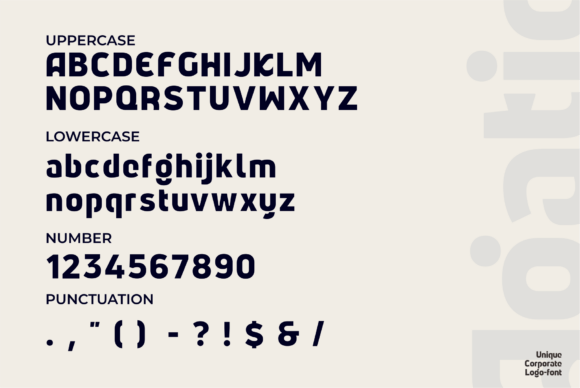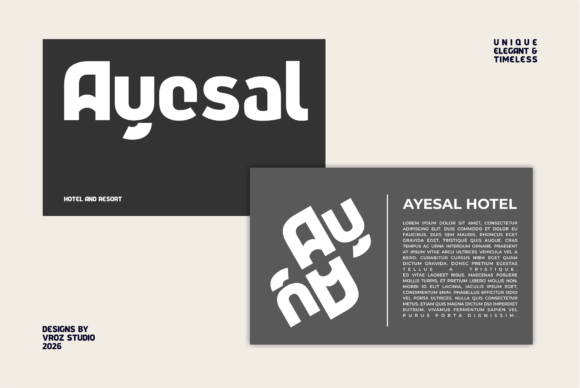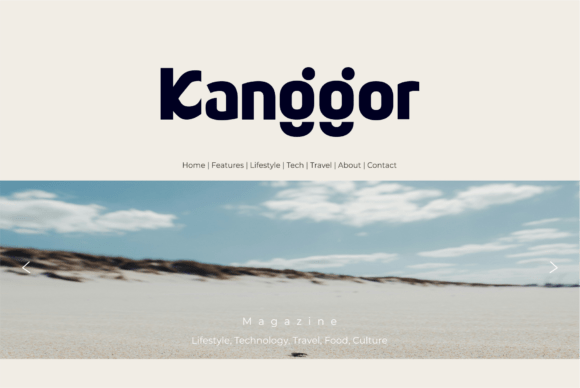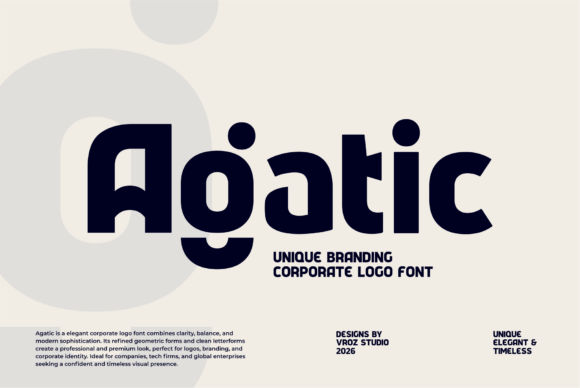
Introduction to Agatic Font
Agatic – Unique Branding Corporate Logo Font Agatic is a refined geometric sans-serif typeface crafted for premium branding and sophisticated corporate identities.
Designed with a focus on balance, precision, and timeless elegance, Agatic delivers a confident visual presence that feels modern yet enduring Built with clarity and consistency in mind, Agatic delivers strong readability while maintaining a distinctive geometric character.